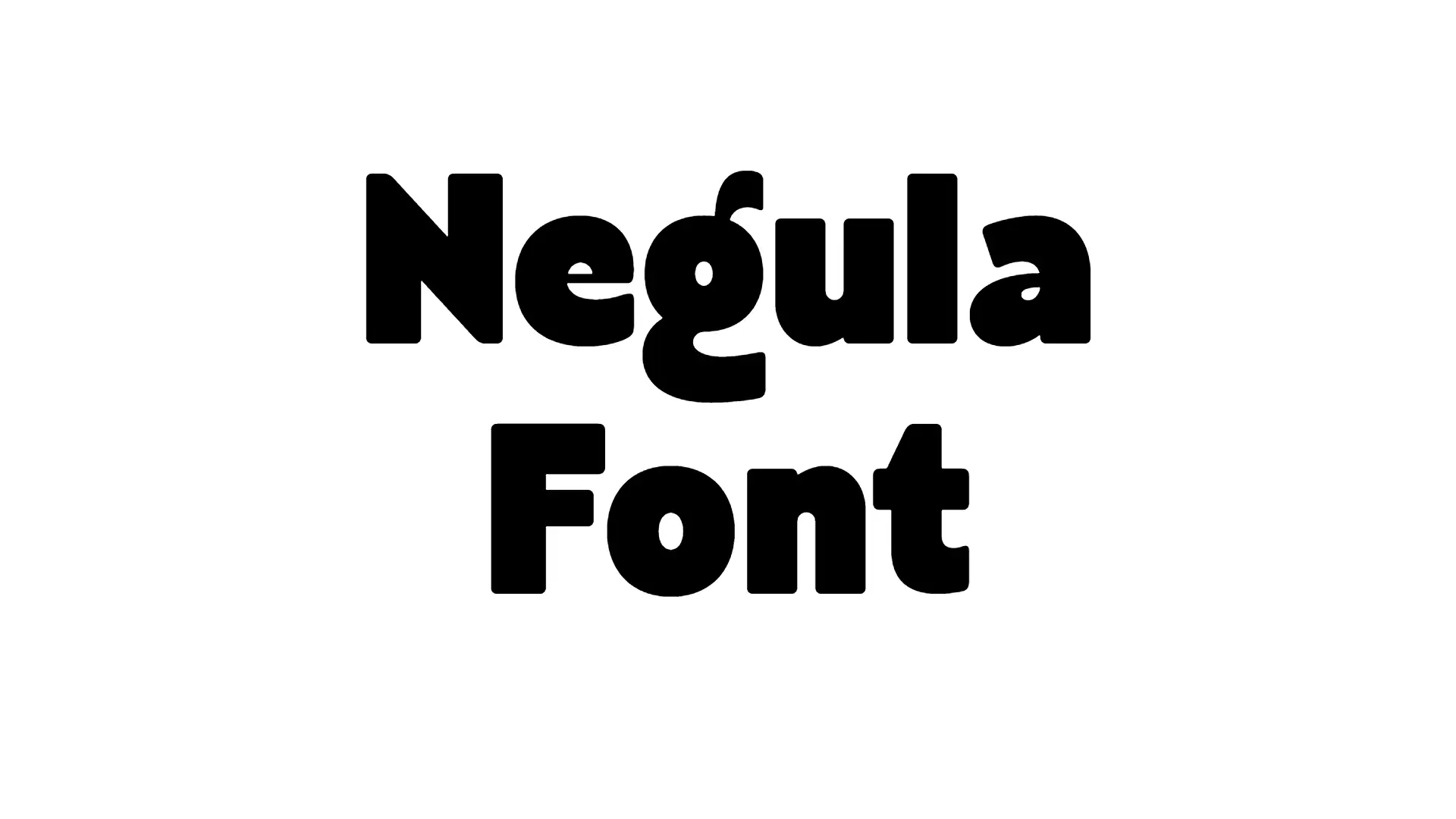
Negula
Negula is a sans serif font made by Bakhrudin Ja'far. Its clean letters skip the little "feet" (serifs) of traditional type, so it looks modern and reads well on screens. You can download it for free and test it with your own words in the preview above.
What You Can Type With Negula
With complete upper and lowercase letters and all ten digits, Negula is ready for real wording, not just a single headline. Everyday marks like &, !, ? and @ are there too. There are no accented letters like é or ñ, so it's best kept to English text.
Where Negula Works Best
Think of Negula for websites, app screens and clean logos. It works for headings and body text alike. If the download has several weights, use a heavier one for titles and a lighter one for paragraphs.
Does Negula support accented letters?
No. Negula has no accented letters such as é, ñ or ü, so it's best for English text.